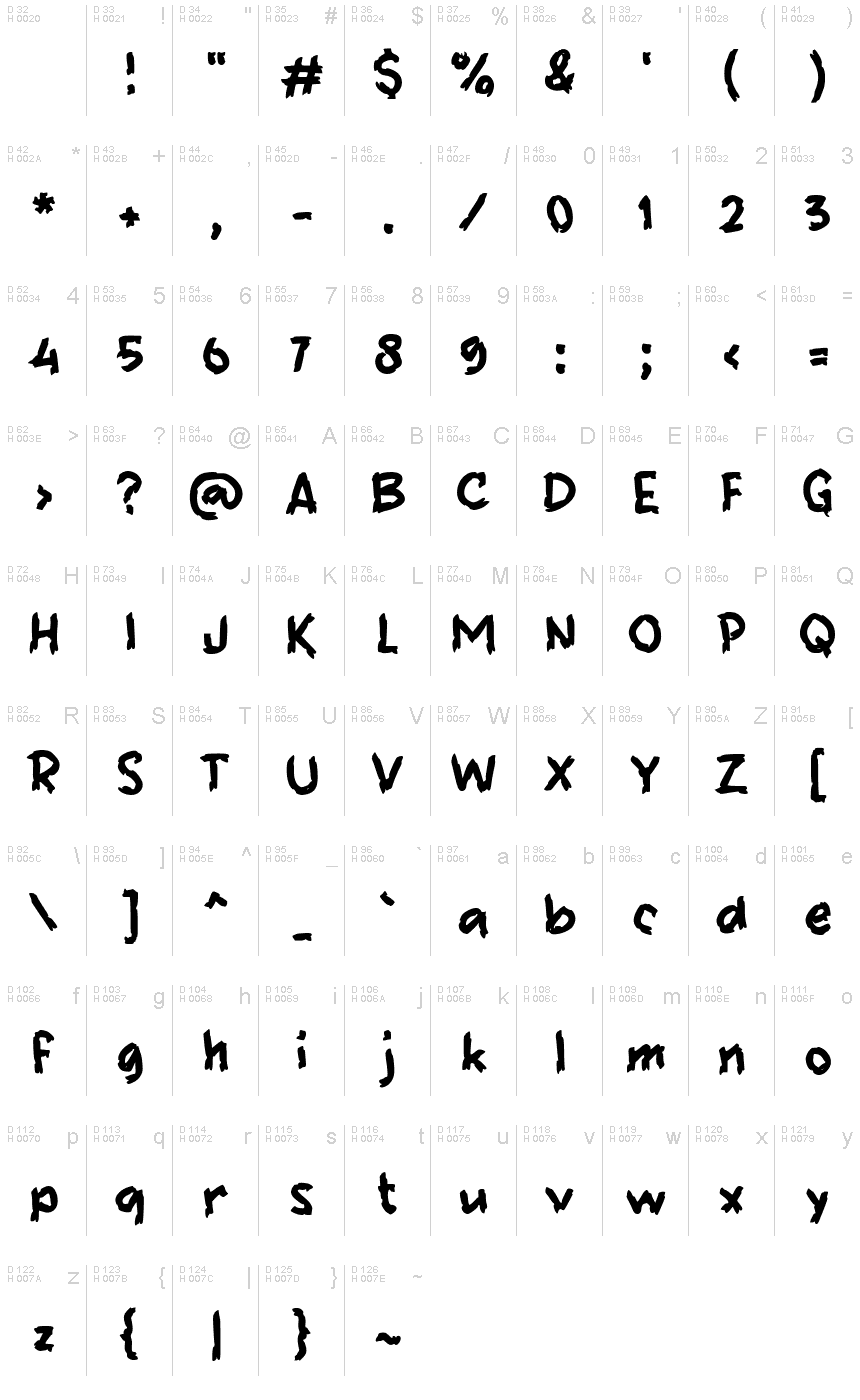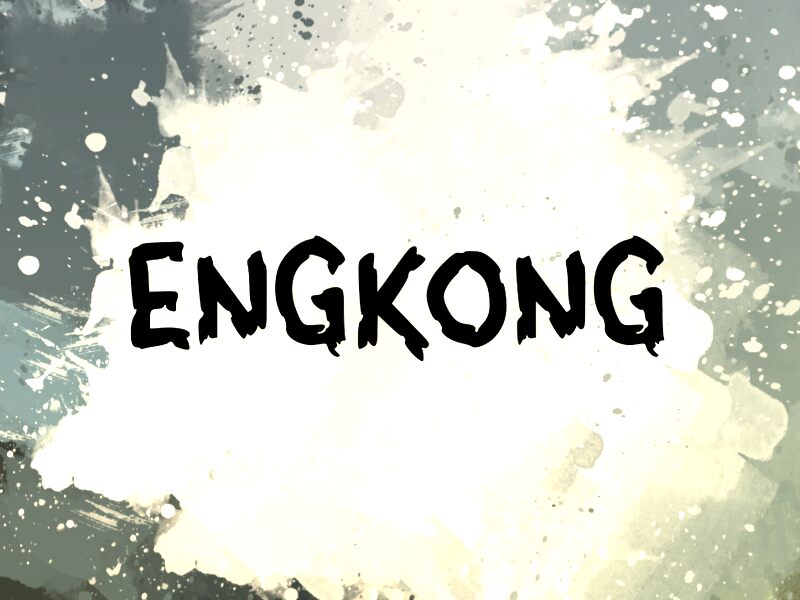
ENGKONG
Engkong, the bold script font by wep, adds a touch of rebellious charm to any project. Its trash style exudes an edgy and unconventional vibe, making it perfect for album covers that crave a gritty aesthetic. Engkong's bold weight commands attention on promotional posters for underground music events.
For fashion magazines seeking a daring and unconventional look, this script font adds an eclectic flair to editorial spreads. Whether it's tattoo designs or street art murals, Engkong is the ideal choice to stand out from the crowd with its bold and rebellious personality.